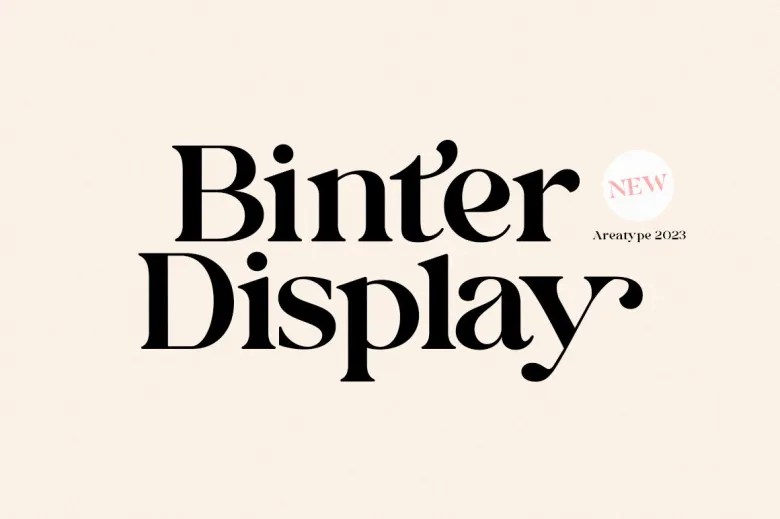
Binter Display Font
Introducing Binter Display, a refined serif typeface that exudes sophistication and grace. Drawing inspiration from classic typography, Binter Display is designed to bring a touch of elegance and timelessness to your projects.
Key Features of Binter Display:
• Classic Serif Design: With its exquisite serif letters, Binter Display captures the essence of traditional typefaces while adding a modern touch of elegance.
• Sophisticated and Graceful: The font’s refined design elements provide a polished and sophisticated appearance, making it ideal for high-end branding and editorial work.
• Versatile Application: Perfect for a range of uses, including branding, editorial designs, and printing materials. Whether you’re working on magazines, books, or promotional materials, Binter Display adds a layer of class and refinement.
• PUA Encoded: Enjoy quick access to a variety of swashes and glyphs with PUA encoding, allowing for easy customization and unique typographic touches.
Ideal Uses for Binter Display:
• Branding: Enhance your brand identity with the elegant and timeless design of Binter Display, making your brand stand out with classic sophistication.
• Editorial Designs: Perfect for magazine layouts, book covers, and other editorial materials, providing a touch of refinement and readability.
• Printing Materials: Add a sophisticated flair to business cards, brochures, and other printed materials with this elegant serif typeface.